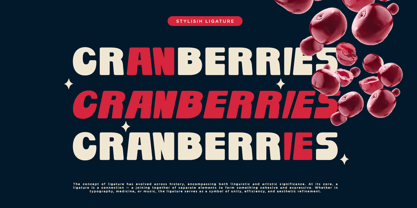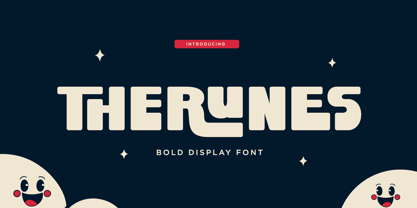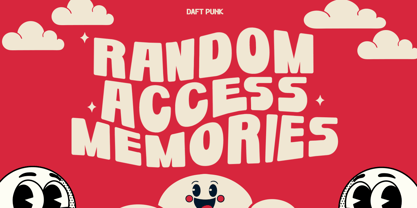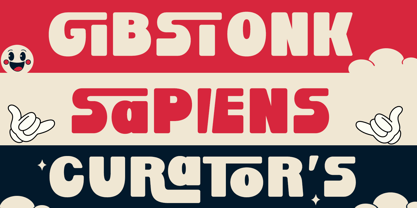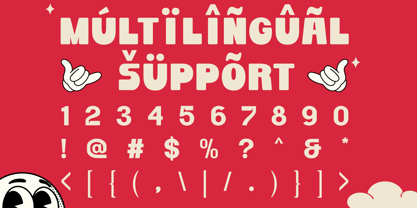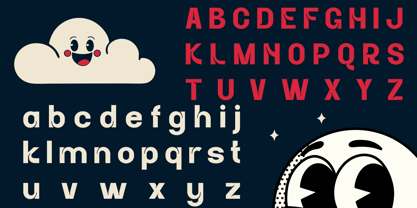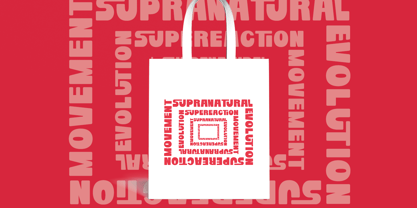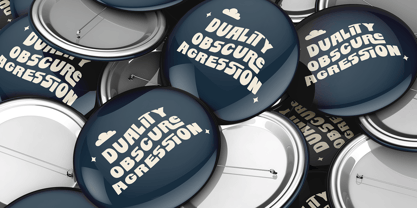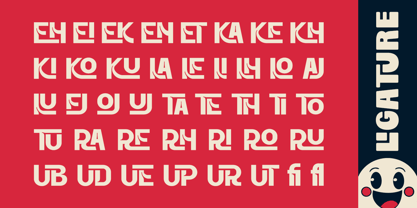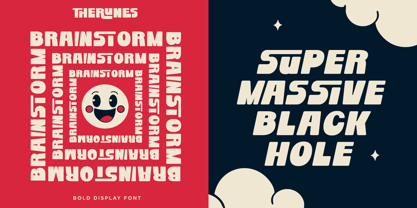
Therunes
by RagamKata
The Therunes Font Family was designed by Yogiswhara Dio Prakoso Riadi and published by RagamKata. Therunes contains 2 styles and family package options. More about this family
Say hello to Therunes, a bold and playful display font that brings a fun twist to retro-futuristic type! Perfectly crafted for standout branding, eye-catching headlines, and quirky design projects. Therunes combines geometric shapes with unique ligatures for a style that’s both nostalgic and modern. What You'll Get : - Therunes Regular - Therunes Italic - Stylistic Ligature ( uppercase and Lowercase ) - Multilingual - Number, and Symbol Thanks, Have a wonderful day Ragamkata Studio